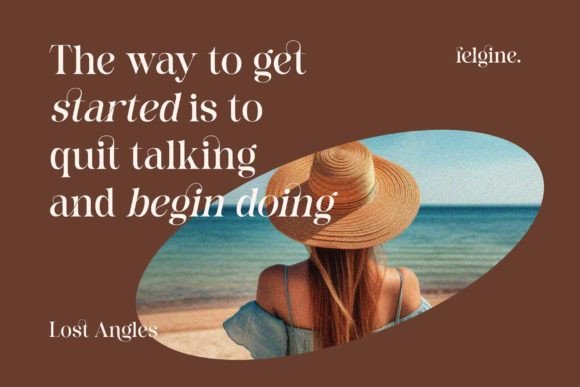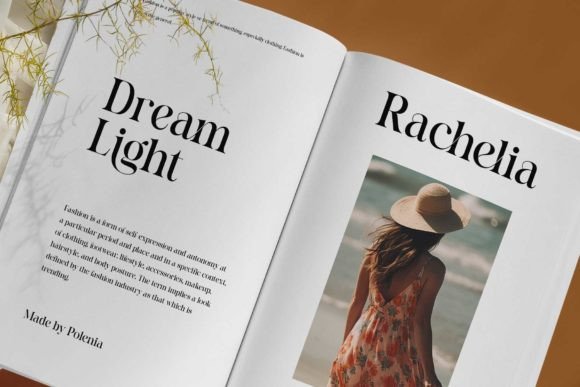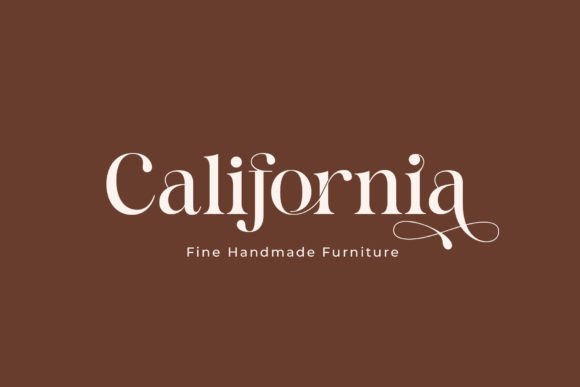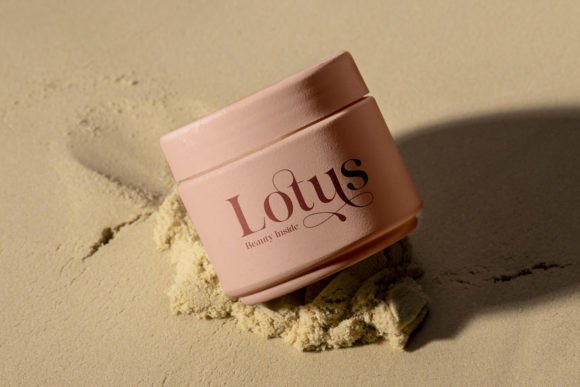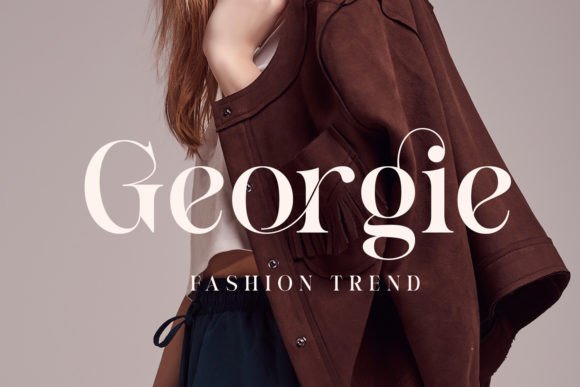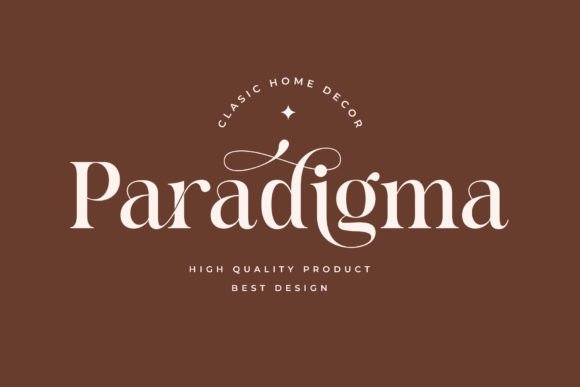
Introduction to Felgine Font
Felgine is a chic & elegant display serif font with a beautiful contrast.
Specially designed for fashion-themed projects and creating elegant and chic lifestyle designs such as logos, titles, magazines, and more .
Key Features of Felgine Font